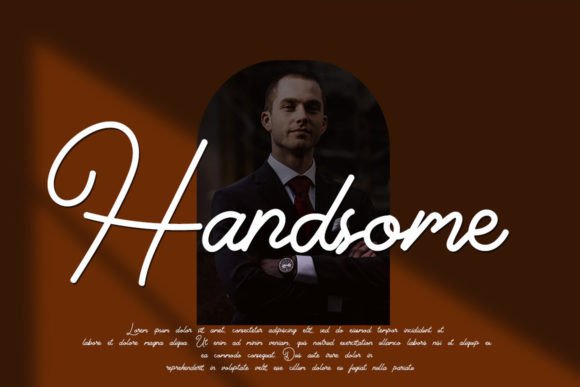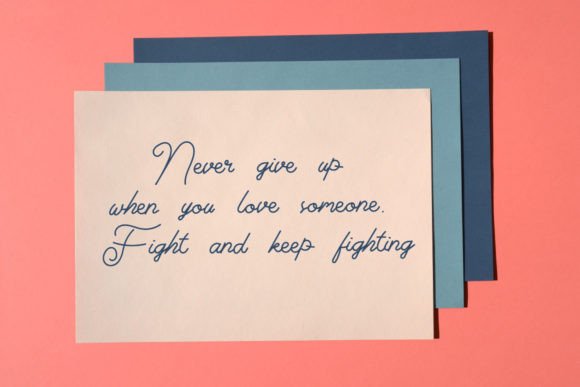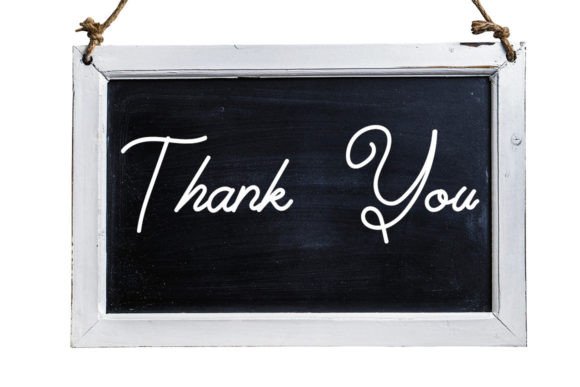
Introducing Handwrite: The Elegant Script Font for Sophisticated Designs
Are you looking for a font that can add a touch of elegance and sophistication to your designs? Look no further than Handwrite, a stunning script font that is sure to capture the attention of your audience and create a lasting impression. With its intricate, flowing lines that emulate the natural movement of handwriting, Handwrite is the perfect choice for creating unique and personalized designs.
The Beauty of Handwrite
Handwrite is a beautiful typeface that features intricate, flowing lines that mimic the natural movement of handwriting. Its graceful curves and intricate details make it an ideal choice for designs that require a touch of luxury and refinement. Whether you’re creating a logo, branding materials, or simply want to add a touch of elegance to your text, Handwrite is the perfect choice.
Versatility and Functionality
One of the best things about Handwrite is its versatility and functionality. With its multiple weights and styles, you can easily create a variety of design elements, from headlines and body text to logos and branding materials. This means that you can use Handwrite for a wide range of design projects, from elegant wedding invitations to sophisticated business branding.
Handwrite is perfect for designers and crafters who want to add a touch of elegance and sophistication to their designs. Whether you’re creating digital designs or handmade crafts, Handwrite is the perfect choice for anyone who wants to create unique and personalized designs. With its intricate lines and flowing curves, Handwrite is sure to add a touch of luxury and refinement to any design project.
Key Features of Handwrite
- Intricate, flowing lines: Handwrite features intricate, flowing lines that emulate the natural movement of handwriting.
- Multiple weights and styles: With its multiple weights and styles, you can easily create a variety of design elements.
- Elegant and sophisticated: Handwrite is the perfect choice for designs that require a touch of luxury and refinement.
- Versatile and functional: Handwrite can be used for a wide range of design projects, from headlines and body text to logos and branding materials.
Tips for Using Handwrite
Here are a few tips for using Handwrite in your designs:
- Use it for headlines and titles: Handwrite is perfect for creating eye-catching headlines and titles that will capture the attention of your audience.
- Pair it with a sans-serif font: Pairing Handwrite with a sans-serif font can create a beautiful contrast that will add visual interest to your designs.
- Experiment with different weights and styles: Don’t be afraid to experiment with different weights and styles to find the perfect combination for your design.
In conclusion, Handwrite is a stunning script font that is sure to add elegance and sophistication to your designs. With its intricate, flowing lines and multiple weights and styles, Handwrite is the perfect choice for creating unique and personalized designs. Whether you’re a designer or crafter, Handwrite is the perfect choice for anyone who wants to add a touch of luxury and refinement to their designs.